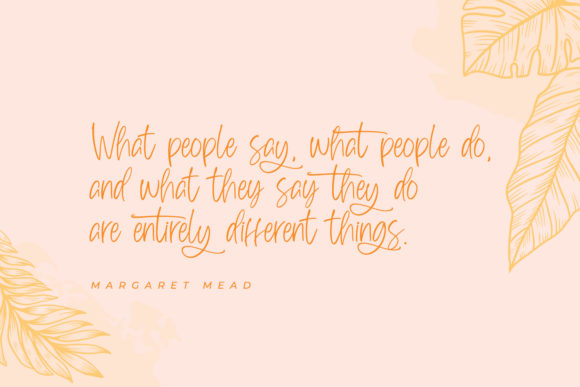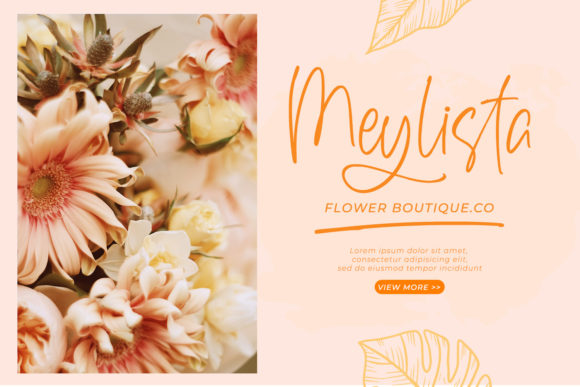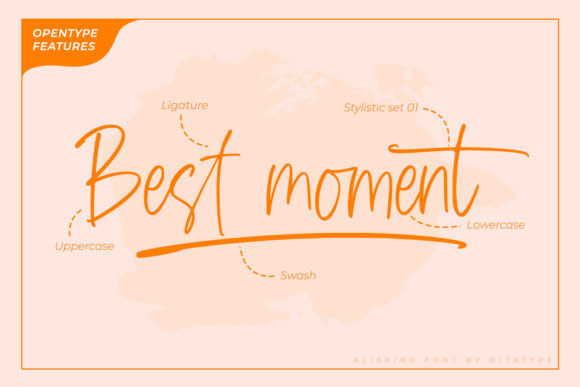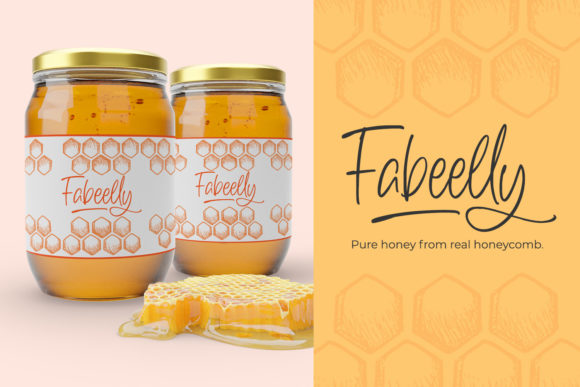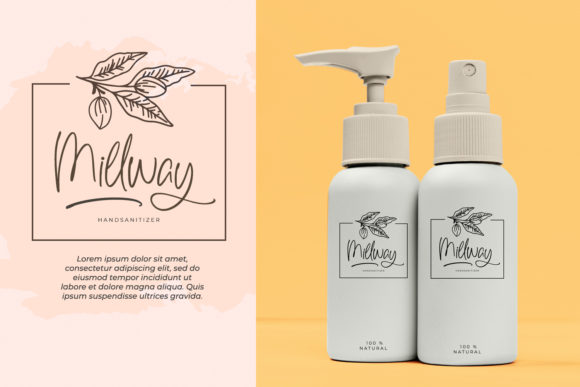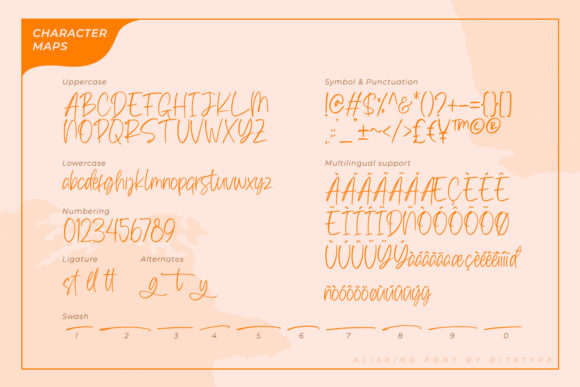
Alisking Font
About Alisking Font
Alisking, a font that embodies the essence of graceful fluidity, presents an exquisite blend of elegance and charm. With its refined strokes and captivating allure, this font has the power to elevate your favorite projects to a realm of sophistication and creativity.
The seamless flow of Alisking’s letters is a testament to its impeccable design, making it an ideal choice for a wide range of design endeavors. From luxurious wedding invitations and heartfelt thank-you cards to inspiring quotes and eye-catching logos, Alisking brings a touch of timeless beauty to every composition.
What truly sets Alisking apart is its inherent elegance. Each letter is meticulously crafted to exude an air of sophistication and refinement. The gentle curves and delicate lines create a sense of visual poetry, evoking a feeling of grace and charm that resonates with viewers.
Alisking isn’t just a font—it’s an experience. Its distinct style and timeless appeal allow you to infuse your projects with a touch of class and allure. Whether you’re designing for print or digital platforms, Alisking adds an element of sophistication that commands attention and admiration.
The font’s versatility is a hallmark of its excellence. Alisking effortlessly adapts to a variety of contexts, from formal invitations to modern branding. Its flowing strokes effortlessly glide across the canvas, creating an impression of effortless elegance that captivates audiences.
Fall in love with Alisking and embrace its distinct and timeless style. As you work with this font, you’ll discover its ability to transform ordinary text into visual masterpieces. Each letter, each stroke, speaks of craftsmanship and dedication, inviting viewers to appreciate the finer details.
In a world where design is a language of expression, Alisking speaks eloquently. It adds a layer of sophistication that resonates with those who appreciate artistry and beauty. Your projects will transcend the ordinary, becoming works of art that leave a lasting impression on anyone who beholds them.
Alisking’s flowing handwritten style is an embodiment of elegance and creativity. It is more than just a font—it’s a partner in your creative journey, enabling you to craft designs that are truly exceptional. So, embrace the grace of Alisking and let it guide you in creating designs that are a testament to your artistic vision and creativity.